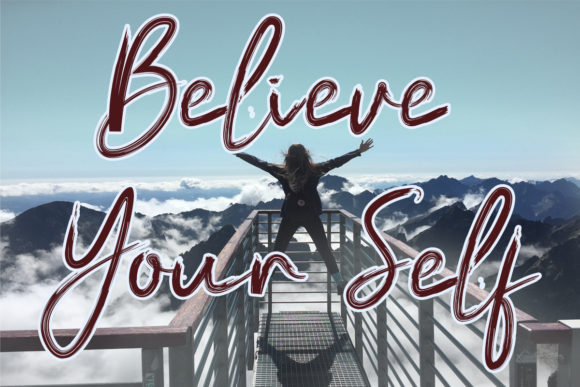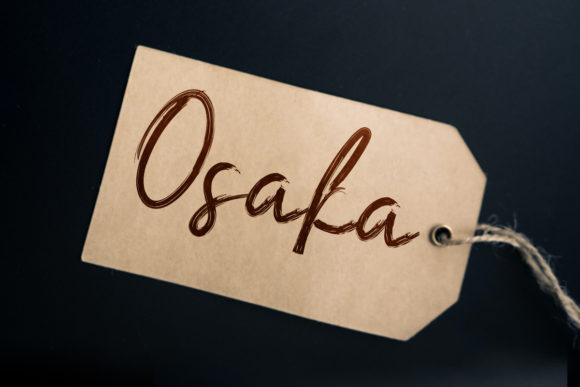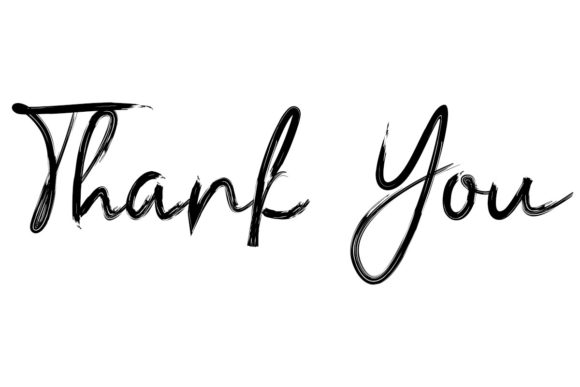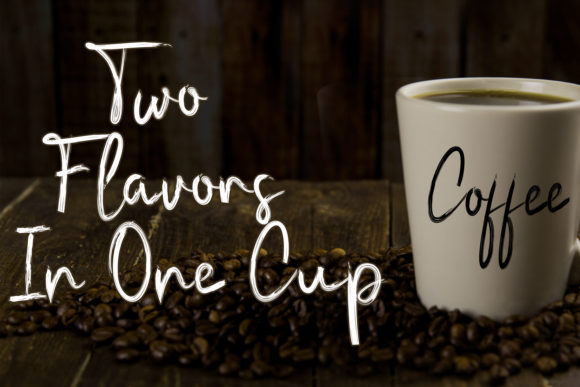
Introduction to Osaka Font
Osaka is a lovely script font created for millennial businesses.
Add it to each of your party invitation, gathering or pretty much any design that requires a touch of youth and joy .
Key Features of Osaka Font